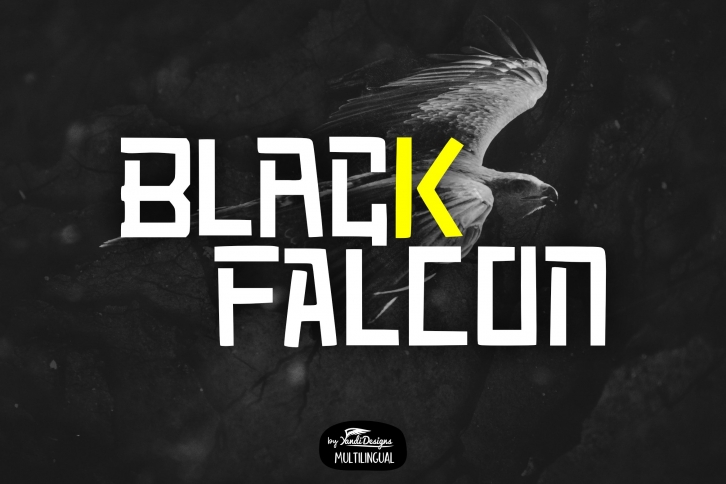
Black Falcon is a trendy and unique font with an authentic style. It was designed by YandiDesigns and it's a great choice for creative people who need such a font. It was released on August 21, 2020 and the file size is 1.84 MB. Black Falcon will add an organic vibe to any design idea!